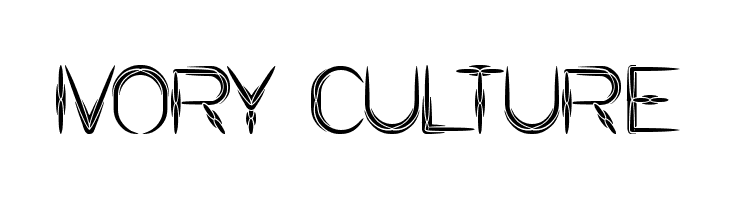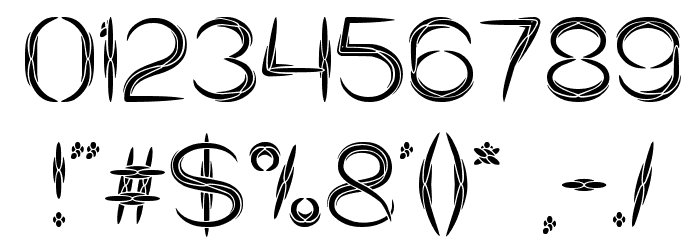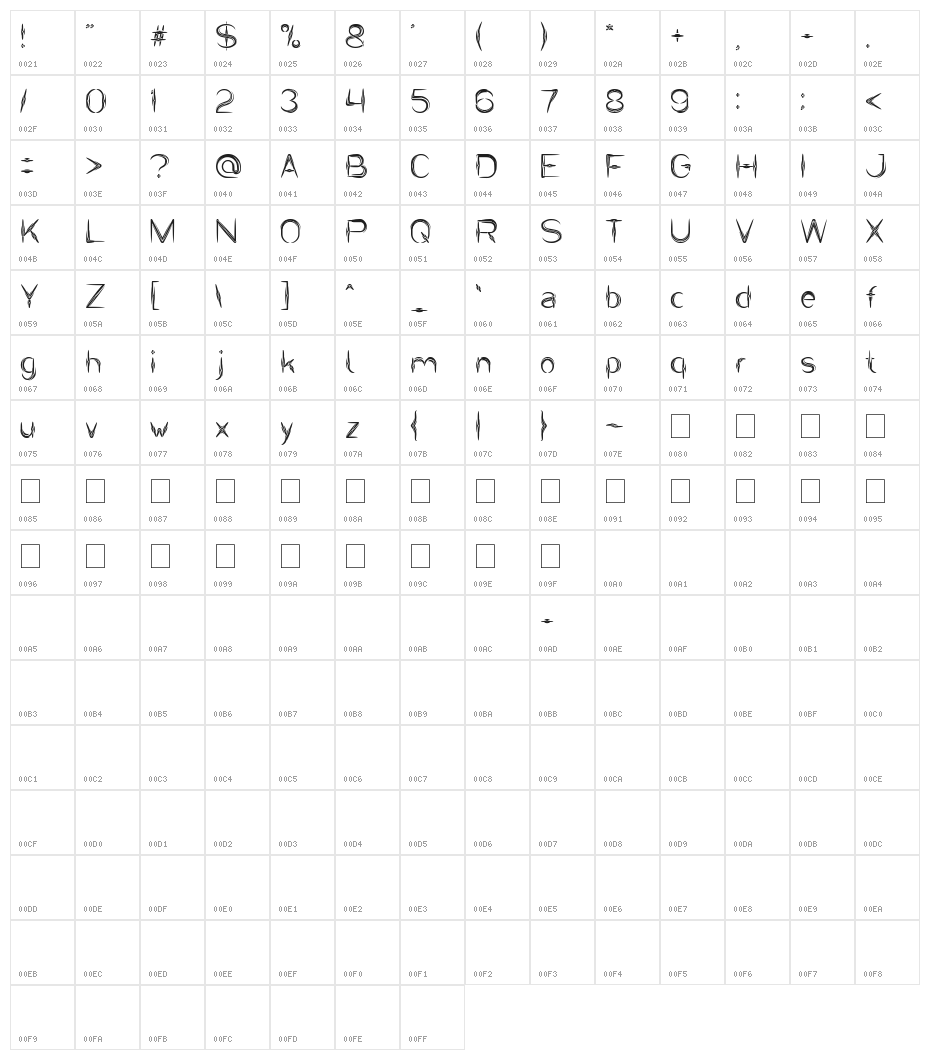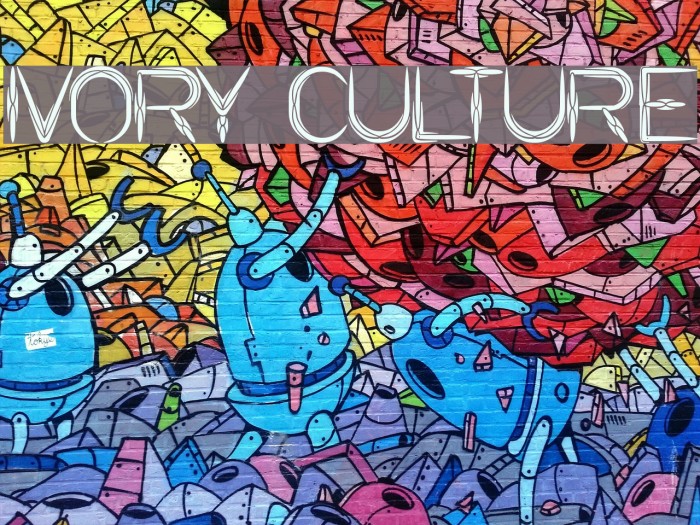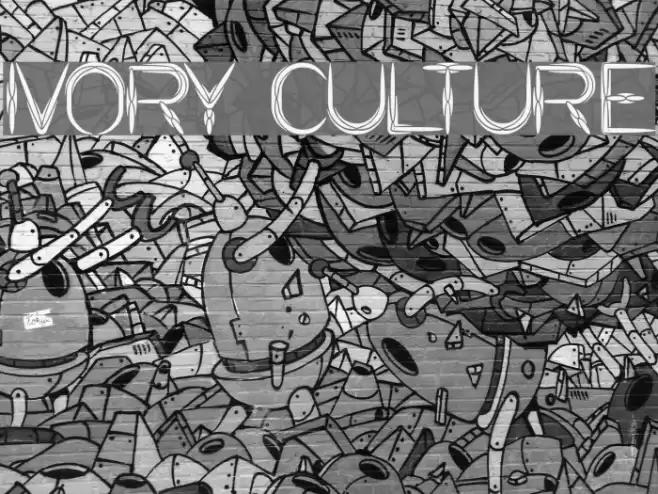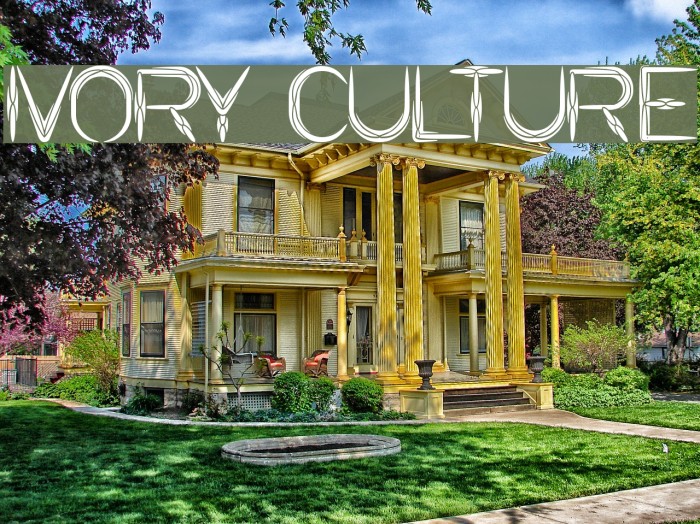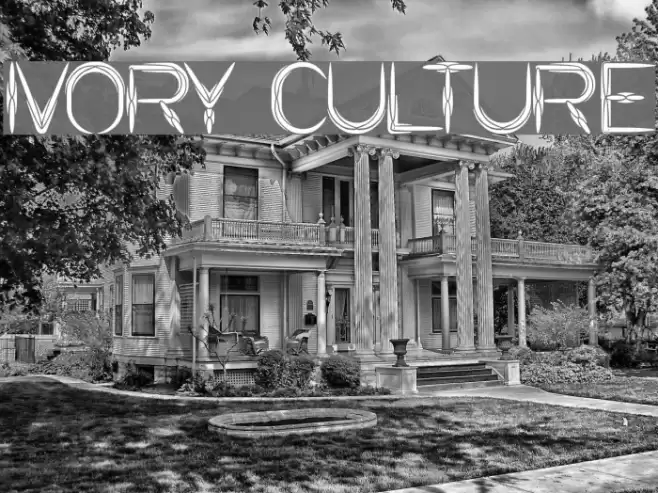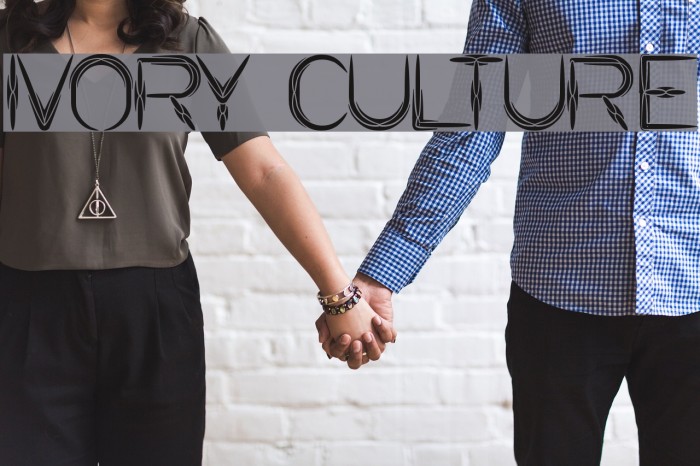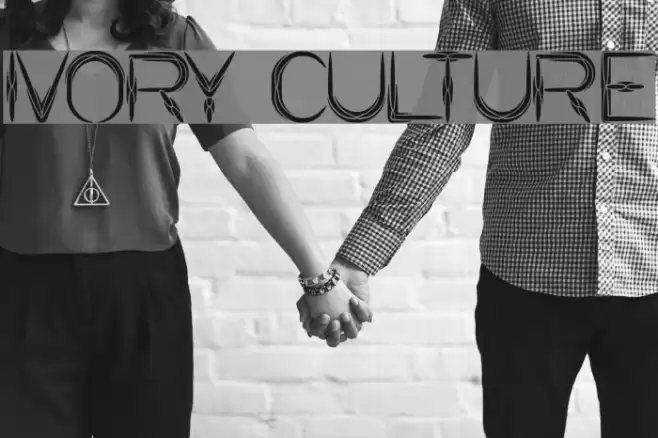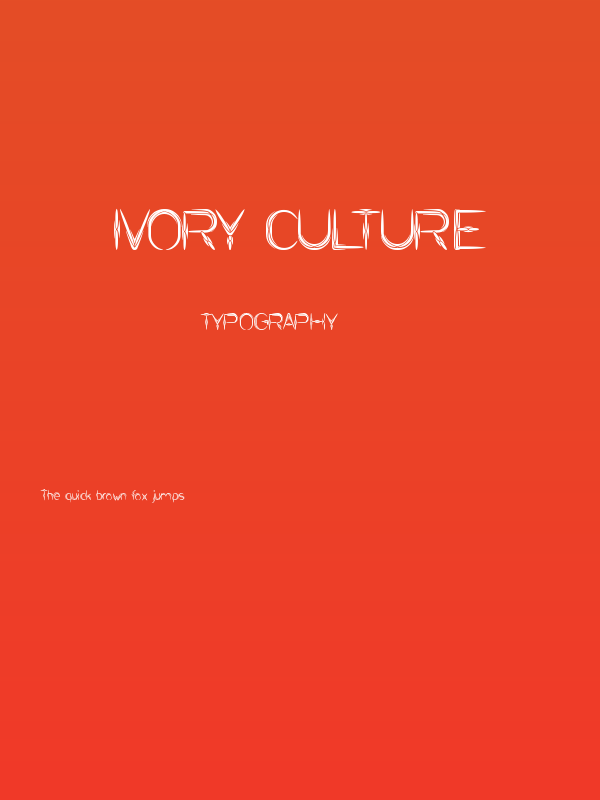
IVORY CULTURE Font
IVORY CULTURE Description
This font features a unique and artistic design, characterized by sharp, angular edges and intricate detailing within each character. The letters are formed with a series of pointed, thorn-like elements that create a dynamic and edgy appearance. The uppercase and lowercase letters maintain a consistent style, with the lowercase being slightly more rounded. Numbers and special characters follow the same design principles, ensuring a cohesive look across all glyphs. This font's distinct style makes it stand out, offering a bold and creative option for various design projects.
| Proposed Projects | Ideal for album covers, posters, branding for edgy or alternative products, and any design requiring a bold, artistic statement. |